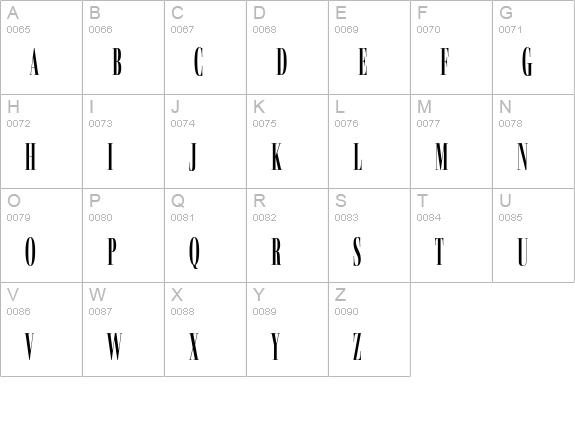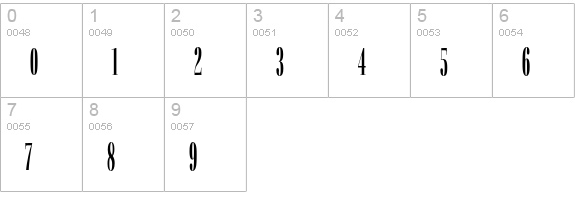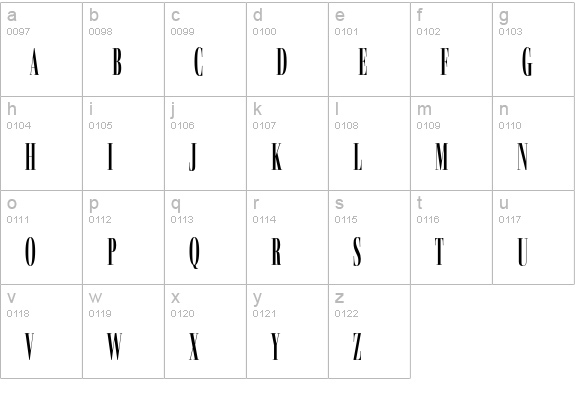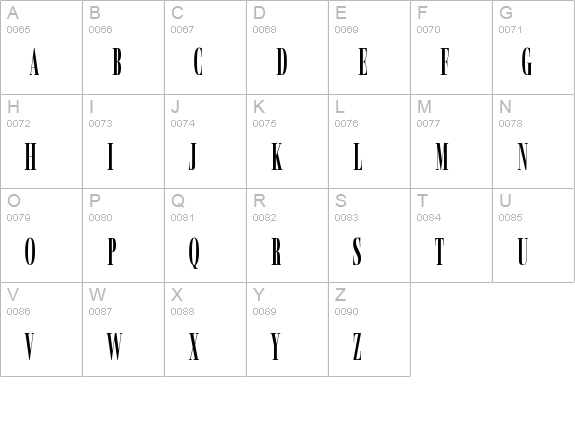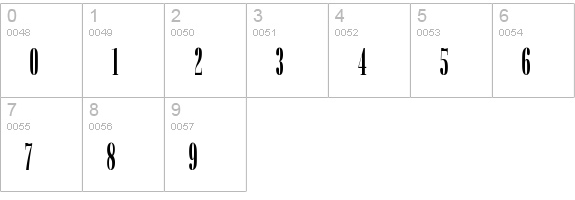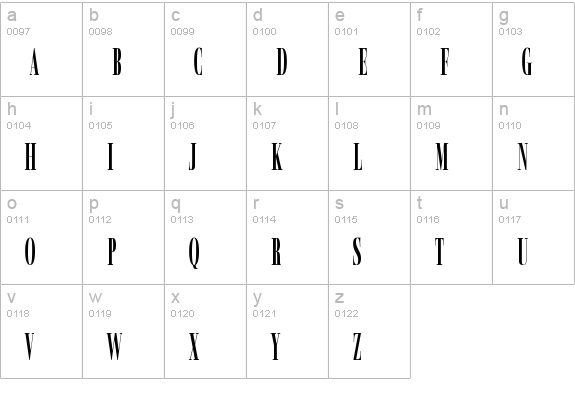
Basilia Compress D Medium is a balanced, medium-weight variant in the Basilia typeface family \xE2\x80\x94 well suited to sub-headlines, navigation, and balanced editorial work.
Basilia Compress D Medium font is a sleek and modern typeface designed to make a bold statement in your designs. With its condensed form and medium weight, this font exudes sophistication and elegance. The clean lines and sharp edges of Basilia Compress D Medium font make it perfect for headlines, branding, and editorial design. The best part is that Basilia Compress D Medium font is available for free download at FontsMarket.com. This means you can easily add this stylish font to your collection without breaking the bank. Whether you're working on a project for print or digital media, Basilia Compress D Medium font will elevate your design and make it stand out from the crowd. Don't miss out on the opportunity to enhance your typography with this striking and versatile typeface.